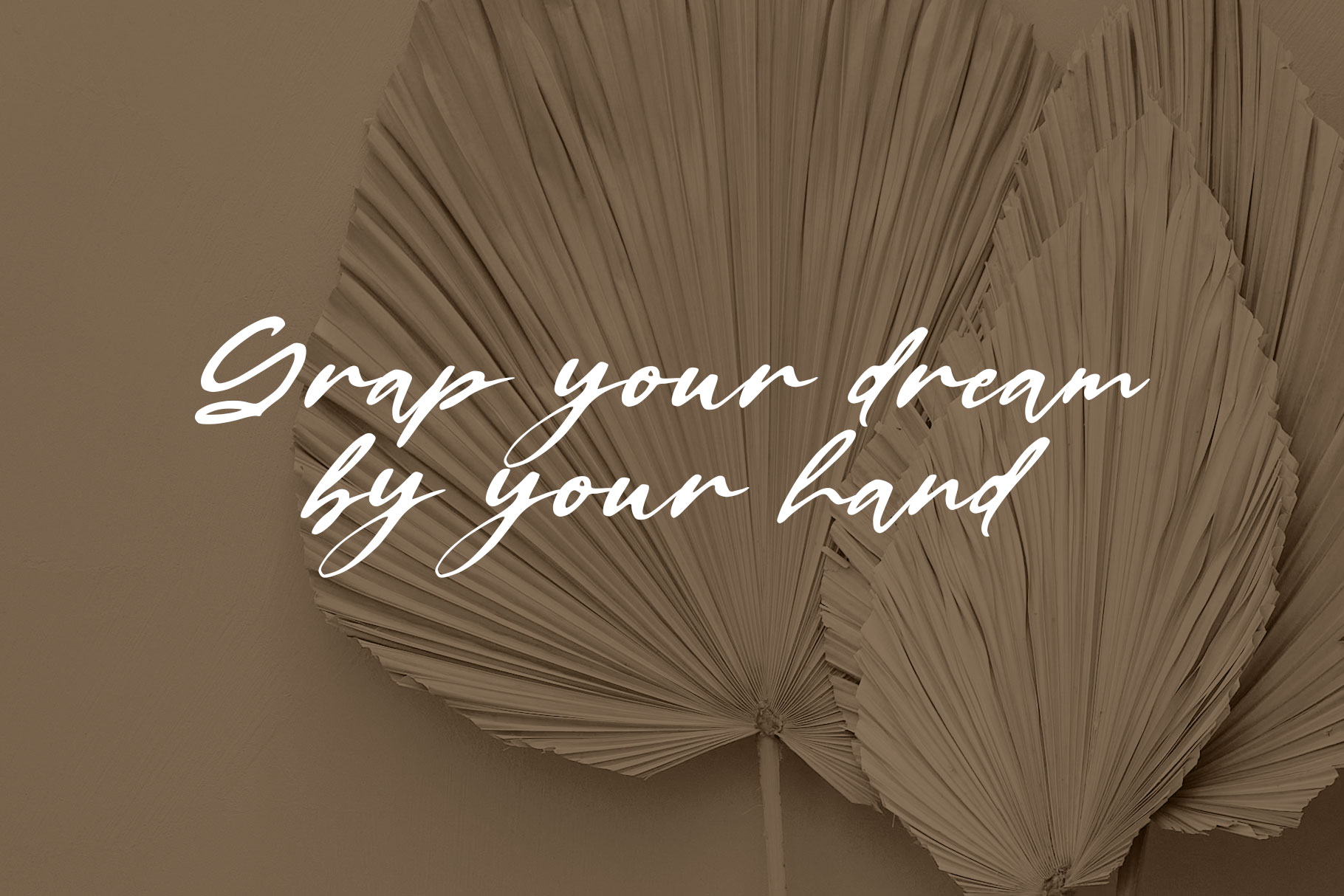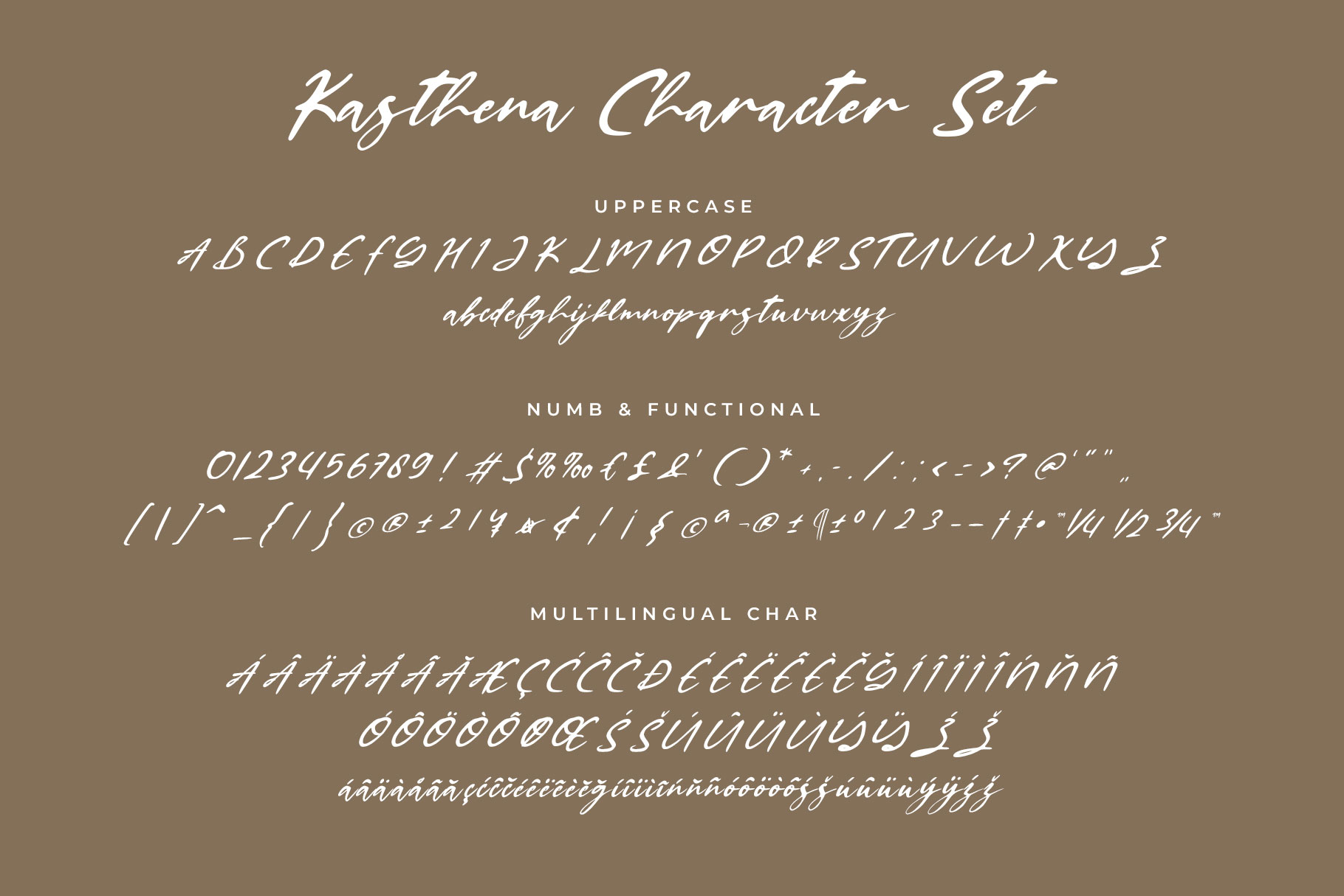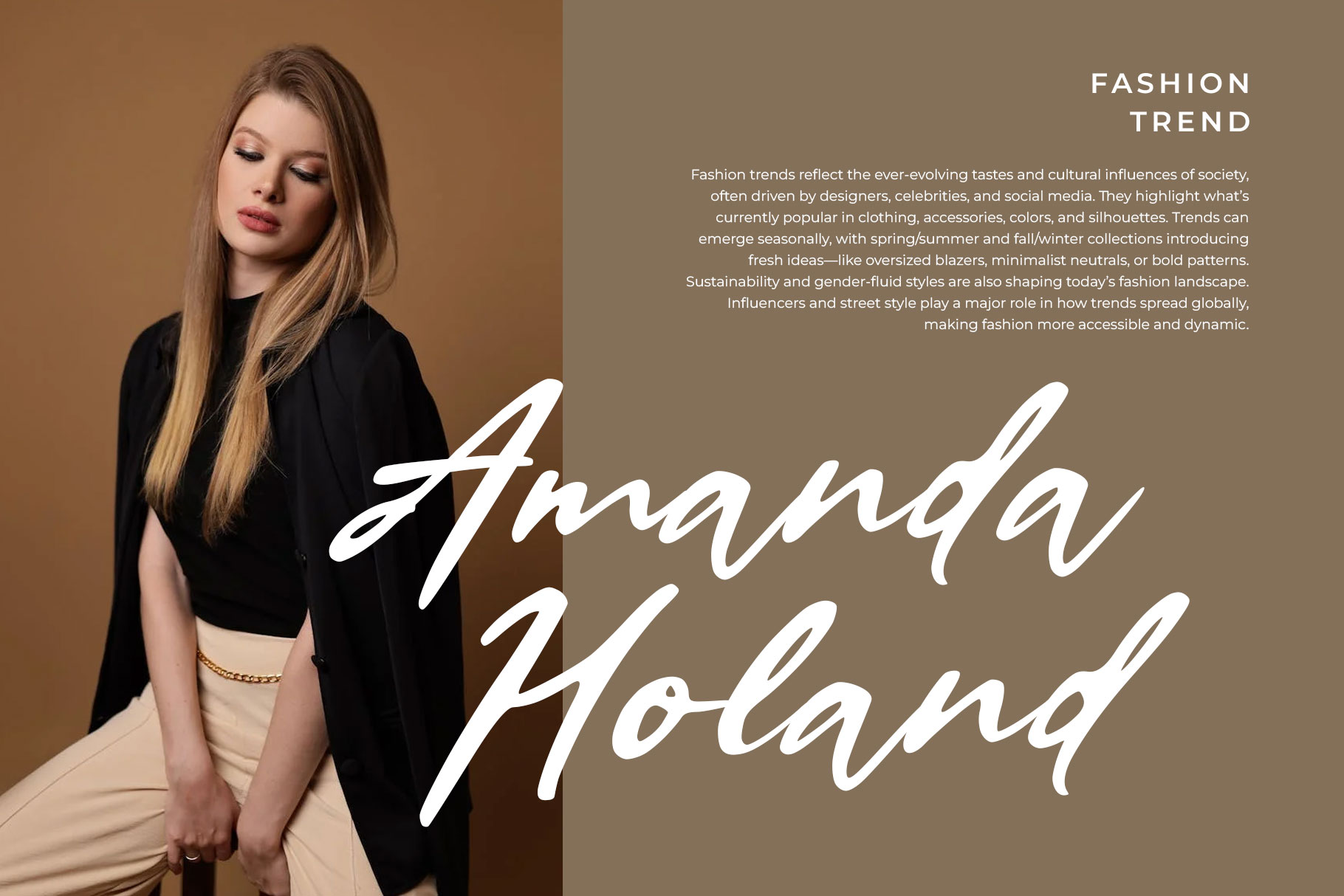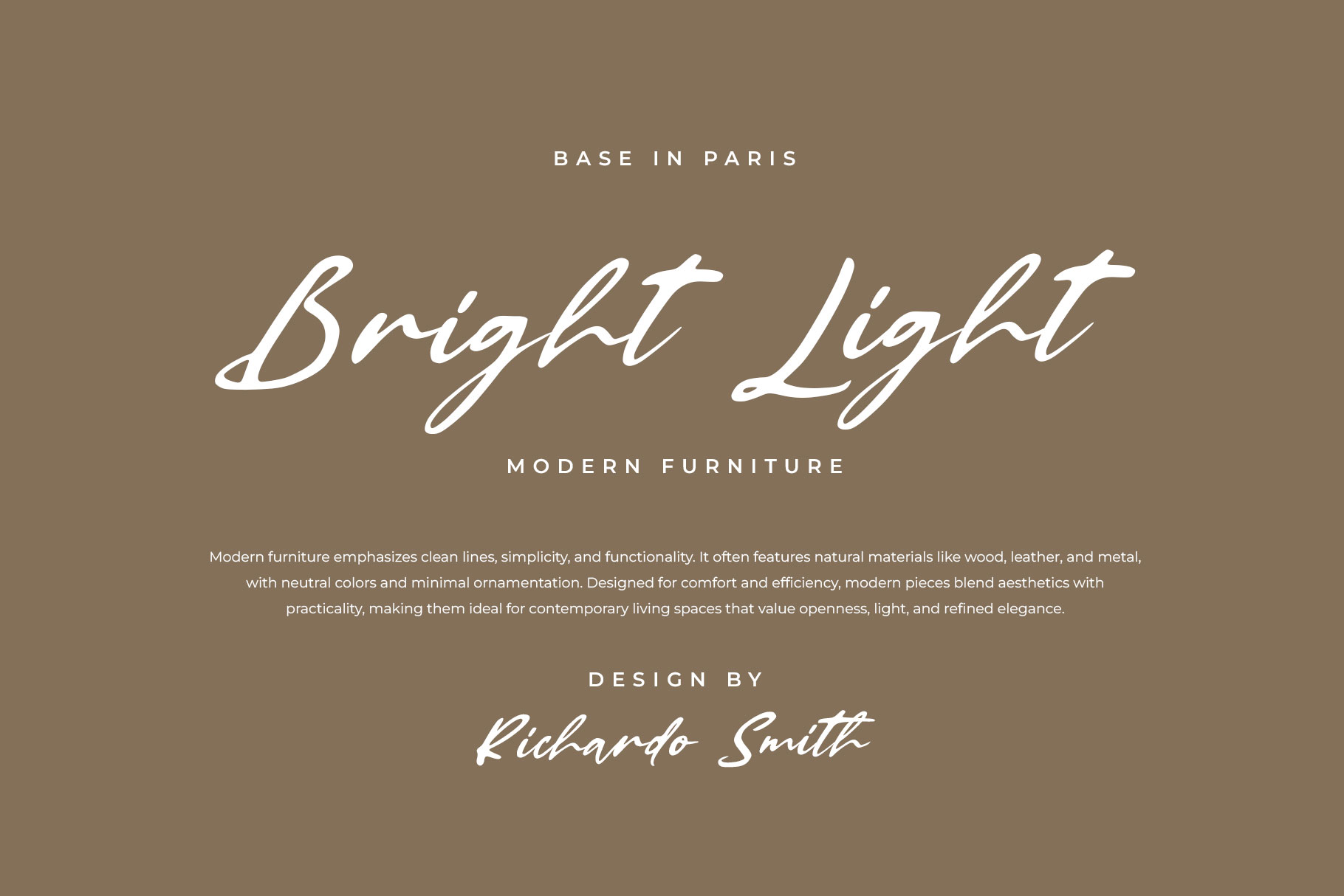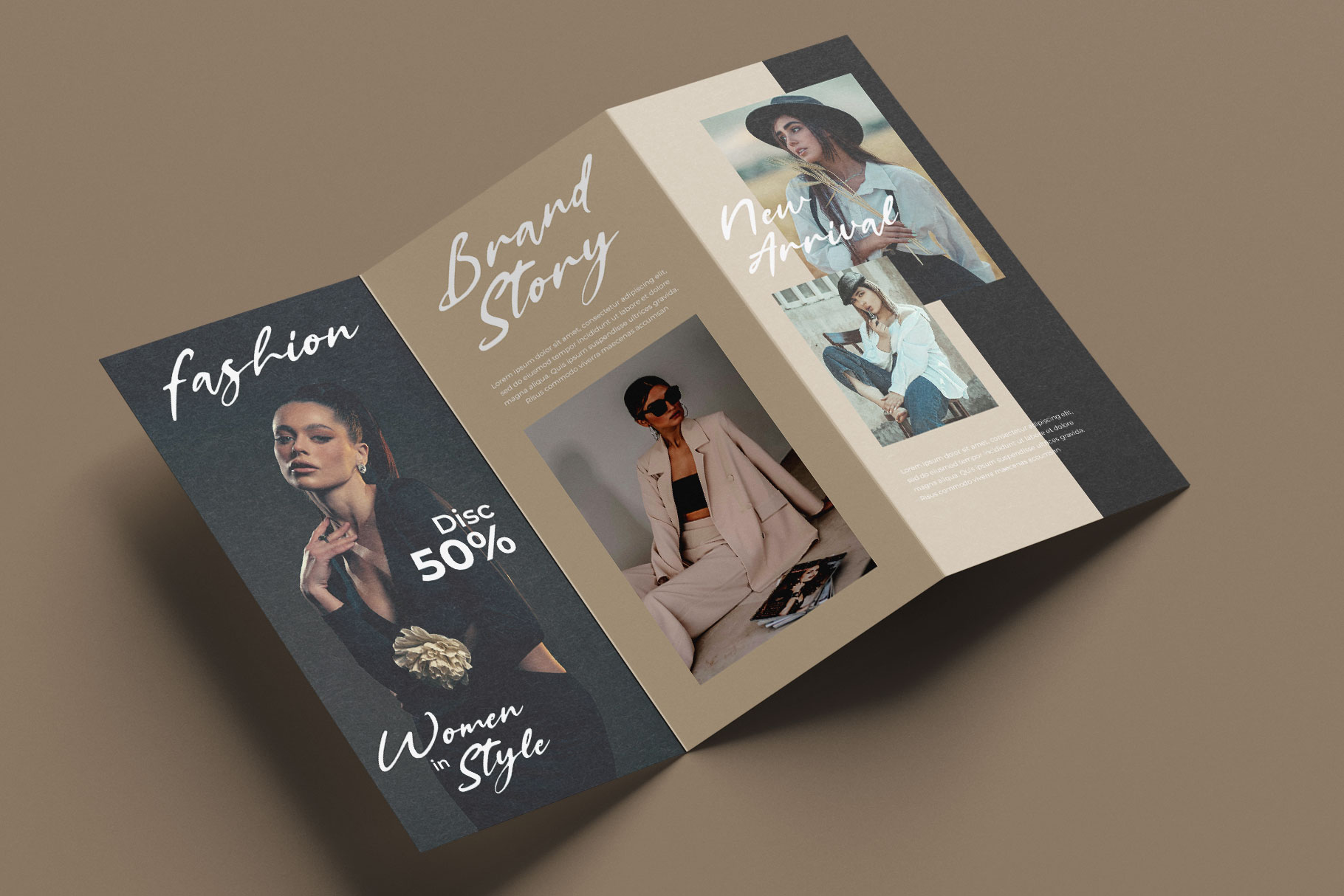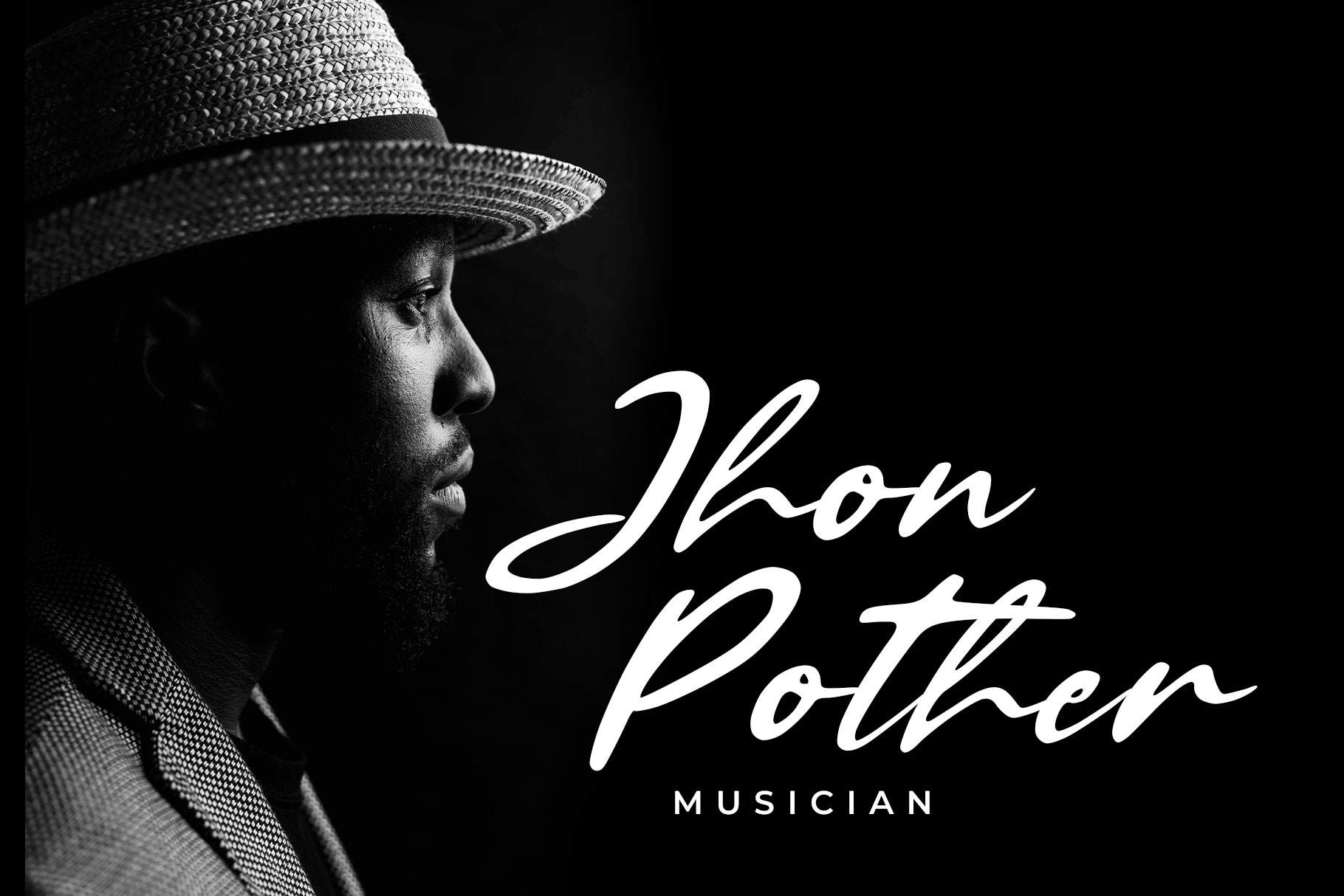
Kasthena Stylish Signature Font
Kasthena is stylish siganture font made by rantautype studio. Kasthena come with bold and stylish curve to create sense of grace. Kasthena is a perfectly choice for any creative endeavor, creating, modern, lifestyle design such as logotype, title, cover, branding, invitations, wedding designs, display and magazine, social media posts, advertisements, printed quotes, product packaging, corporate brand, product designs, labels, photography, watermarks, special events and any other project with modern touch.